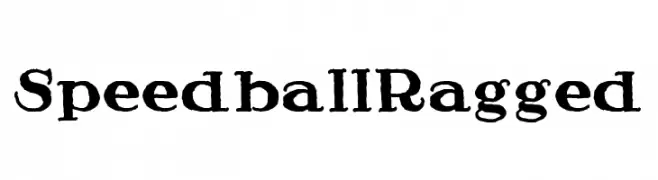
A bold, distressed font with a rugged, impactful style.
A vintage typewriter-style font with a distressed, hand-drawn appearance.
( Fonts by backpacker.gr )
A bold, slashed font with a modern, edgy style.
( Fonts by RudynFluffy )
A decorative and elongated font with a futuristic and bold style.
( Fonts by Jens R. Ziehn - www.filmhimmel.com )
A bold, modern font with thick, uniform strokes and high legibility.